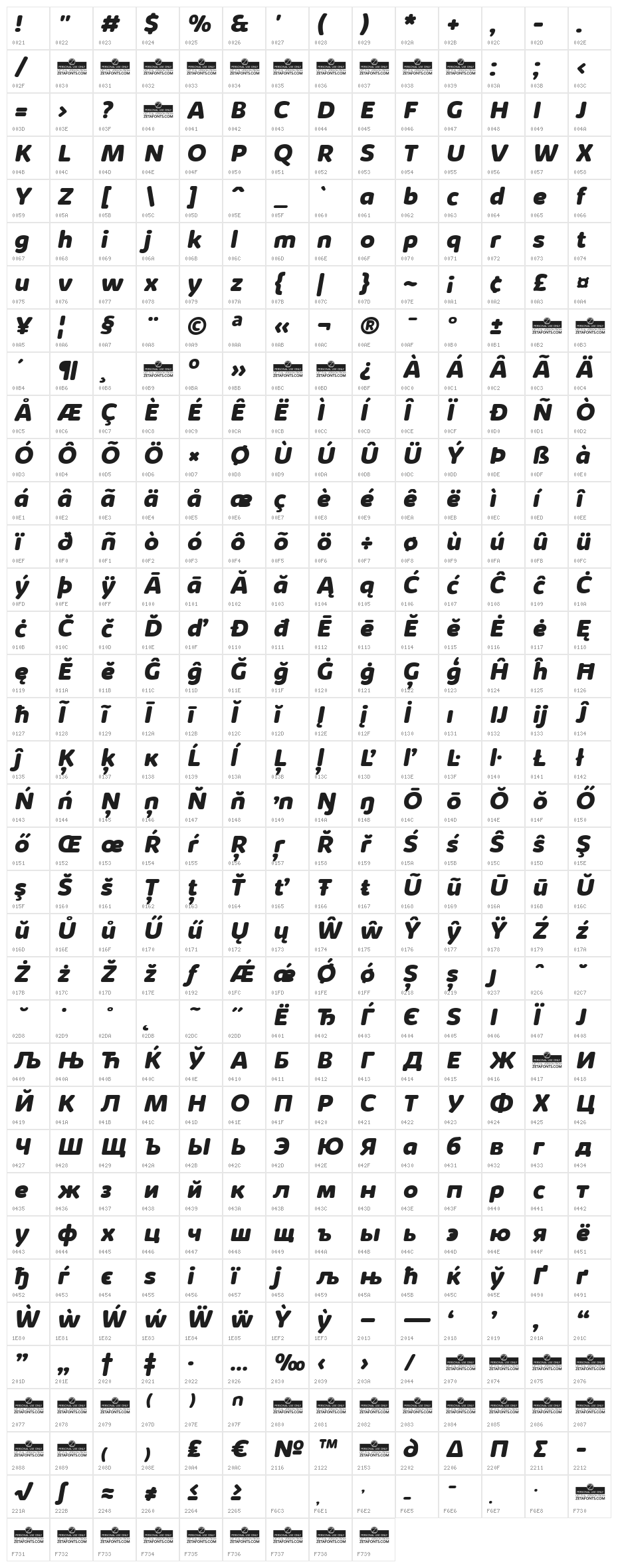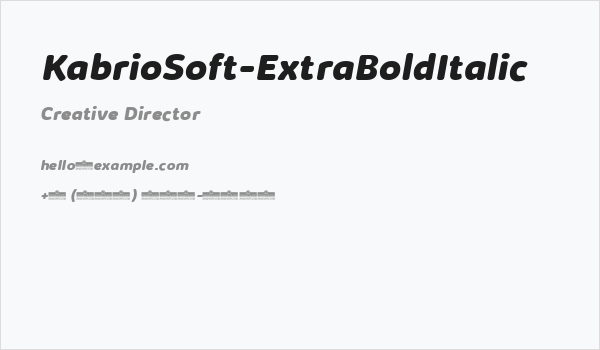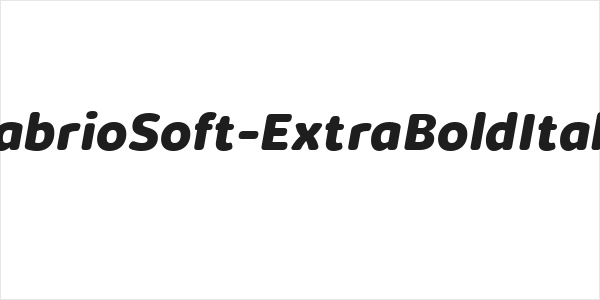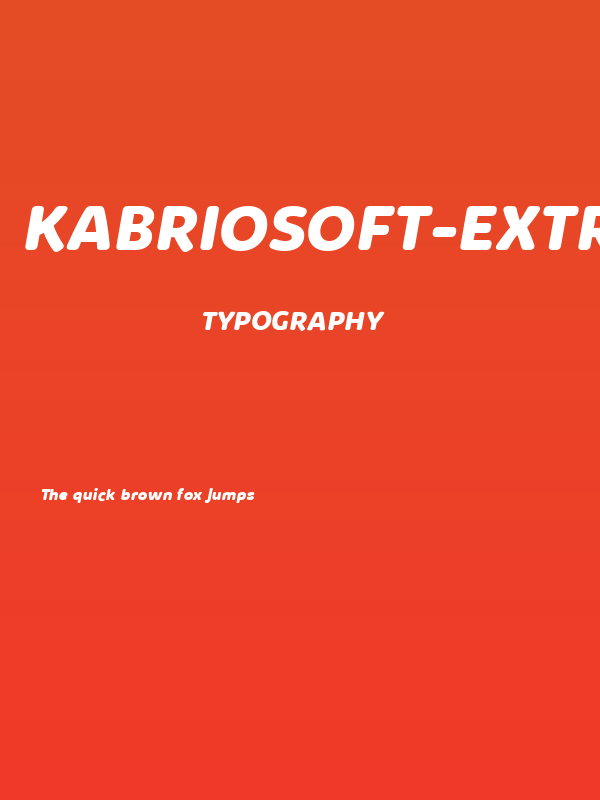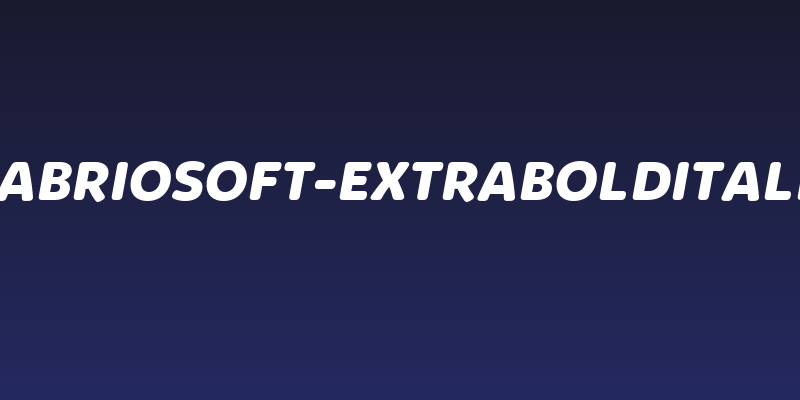
KabrioSoft-ExtraBoldItalic Font
KabrioSoft-ExtraBoldItalic Description
This font exhibits a bold and dynamic style with a distinctly modern flair. The characters are rounded and slightly condensed, giving a sense of approachability and friendliness. The italic slant adds a touch of movement and energy, making it suitable for attention-grabbing headlines. The strokes are consistent in thickness, providing a uniform appearance across all characters. The font includes a full set of uppercase and lowercase letters, numerals, and a variety of special characters, ensuring versatility for different design needs.
| Proposed Projects | Ideal for branding projects, advertising, headlines, and any design requiring a bold and modern touch. |